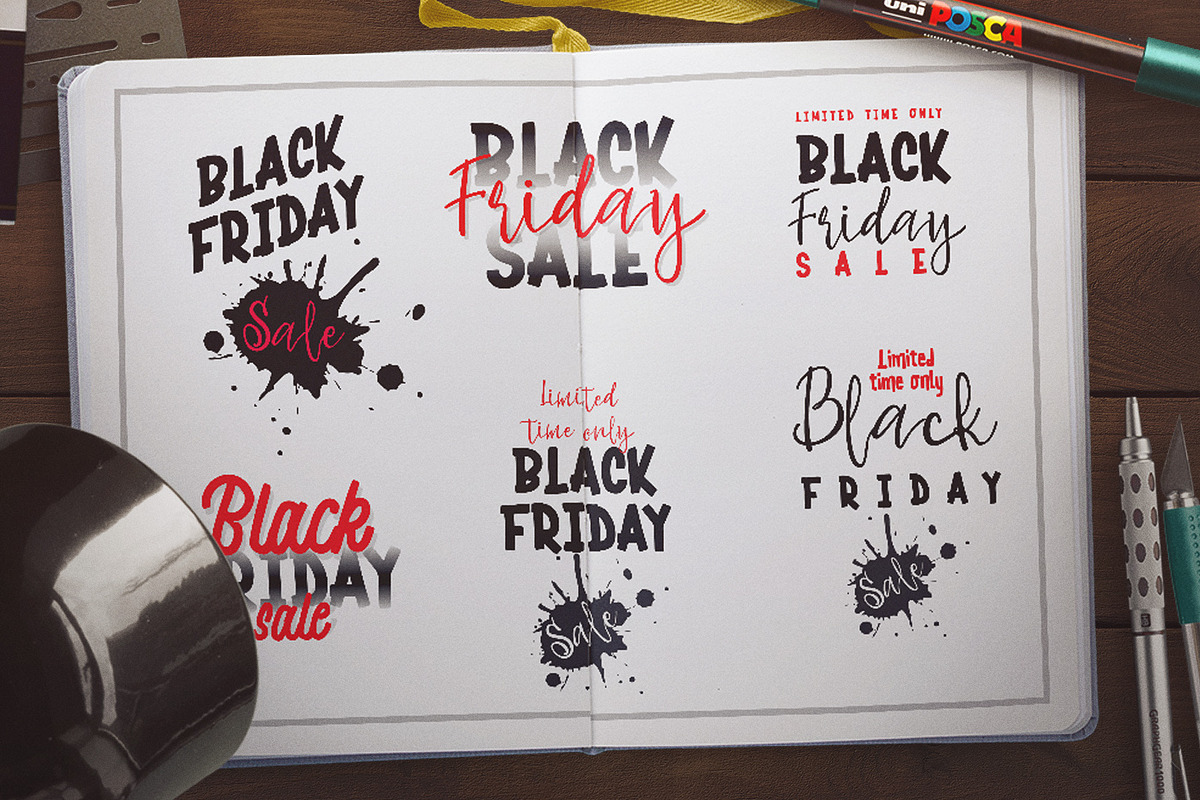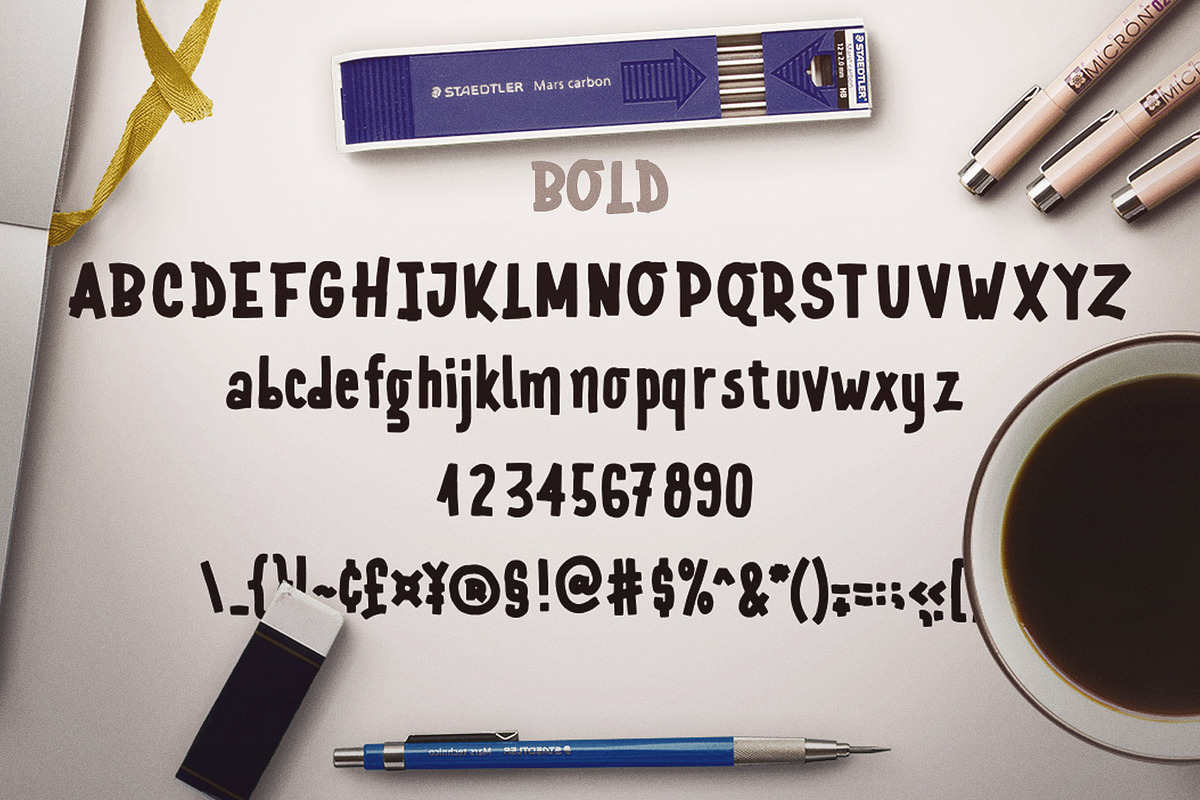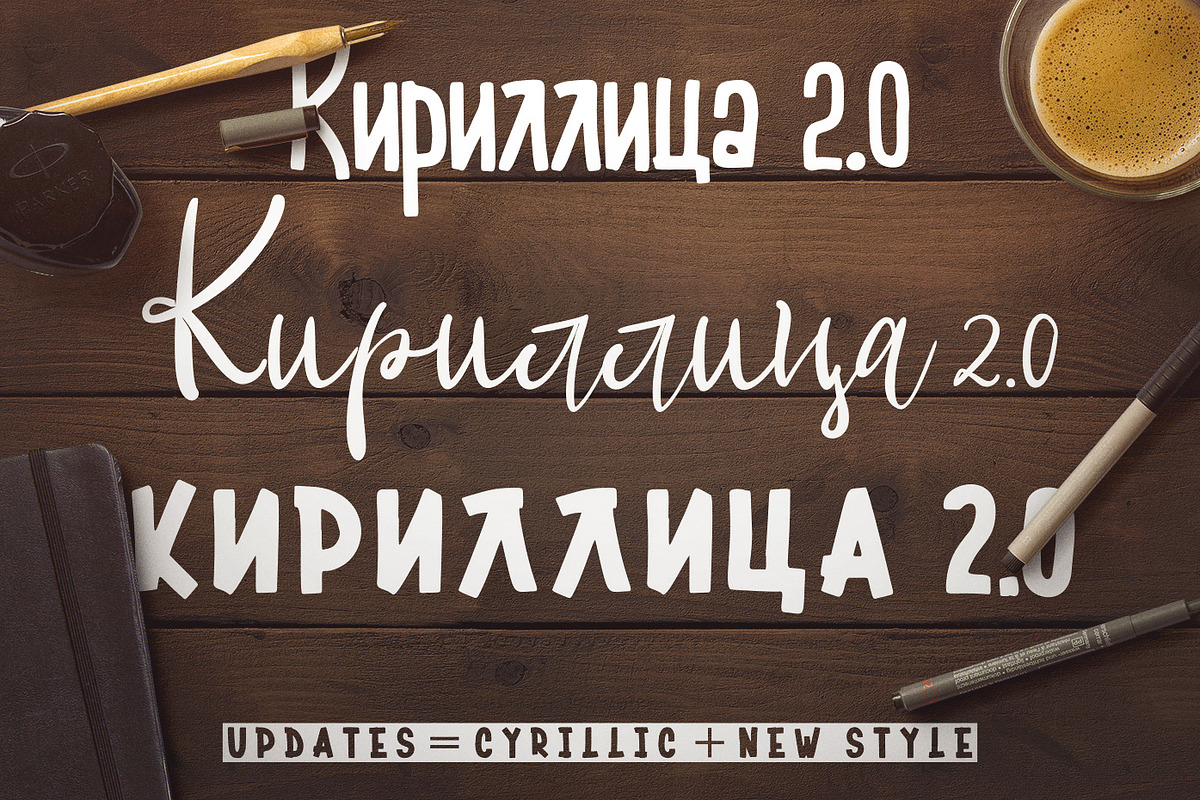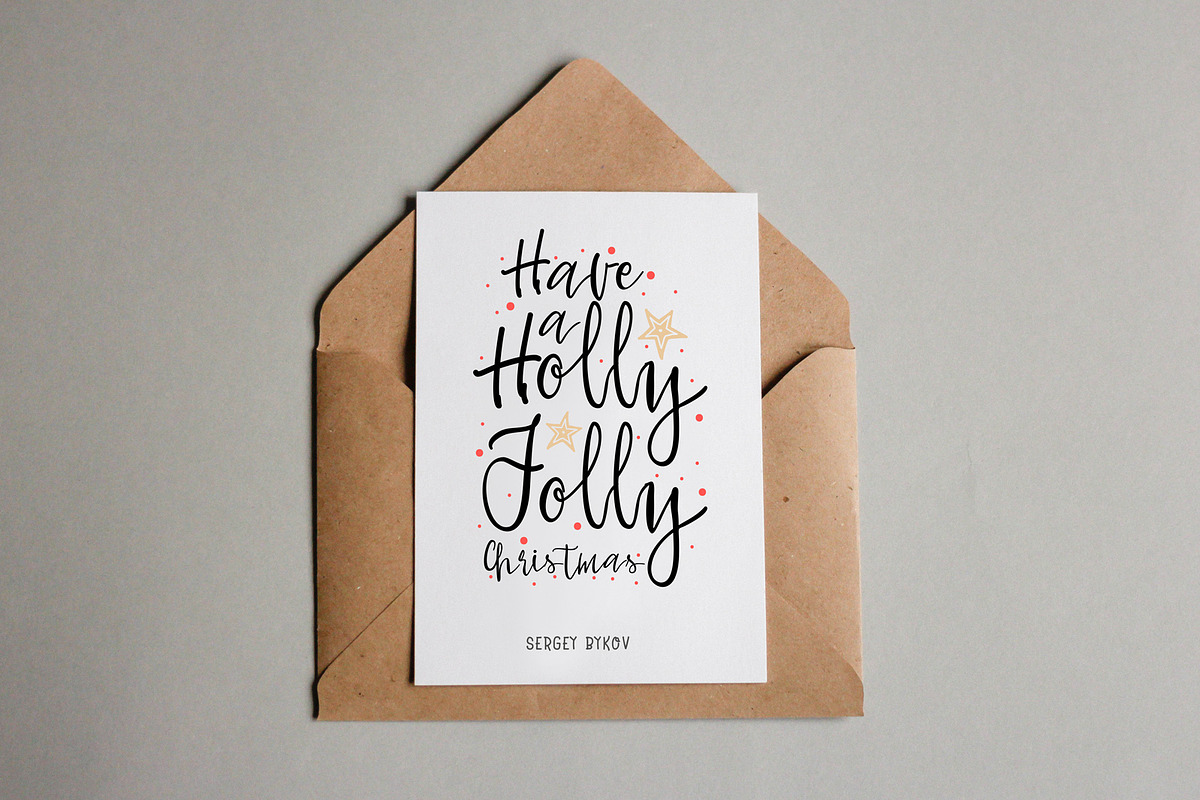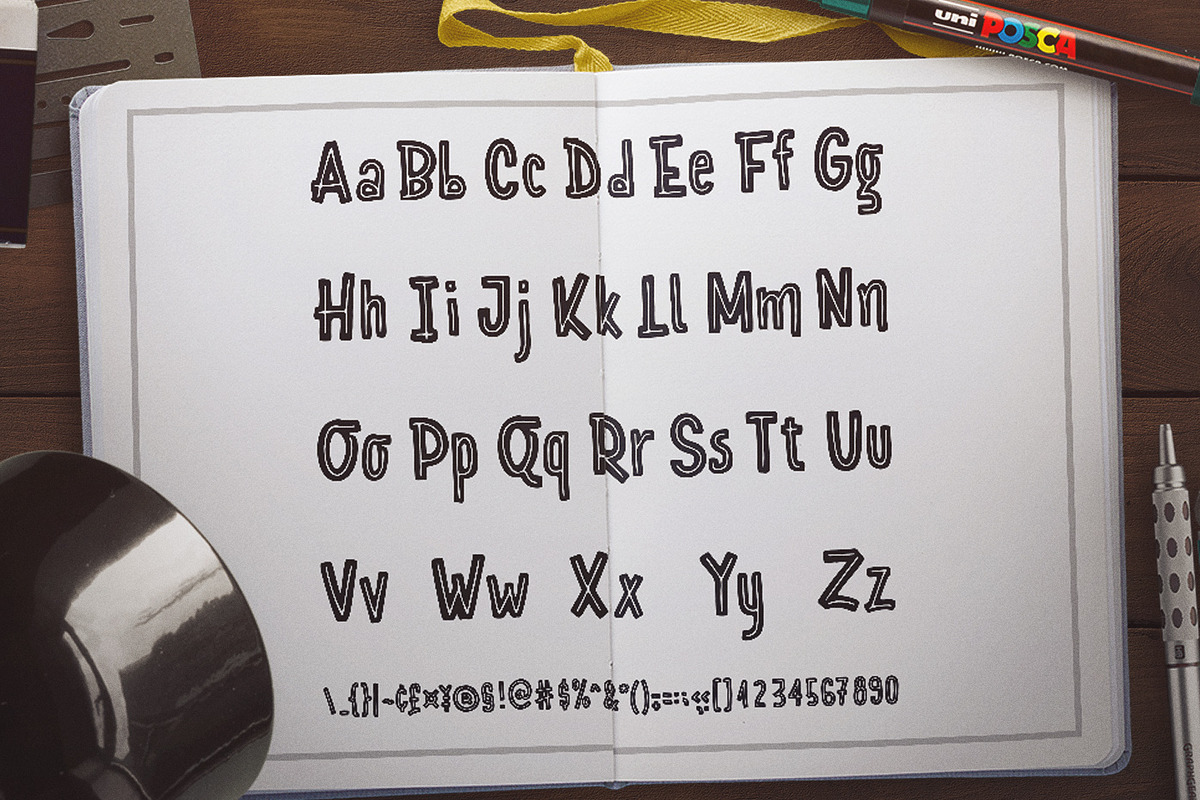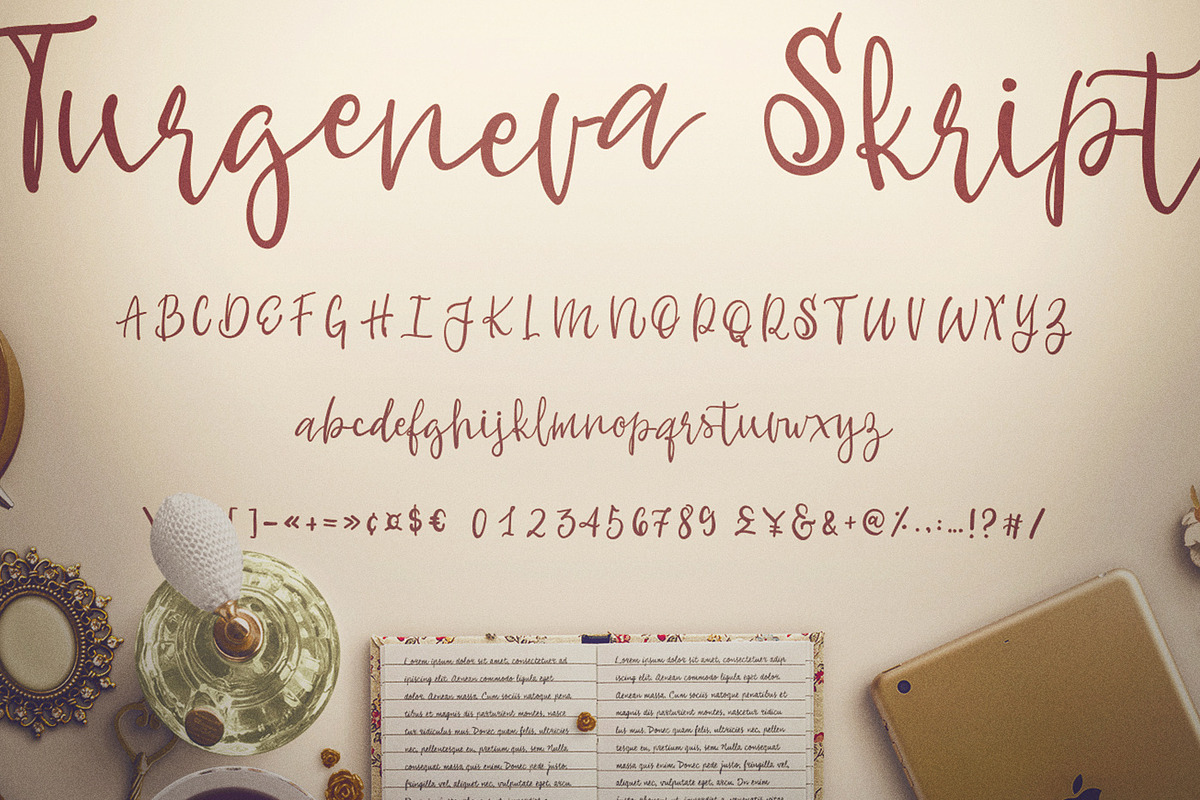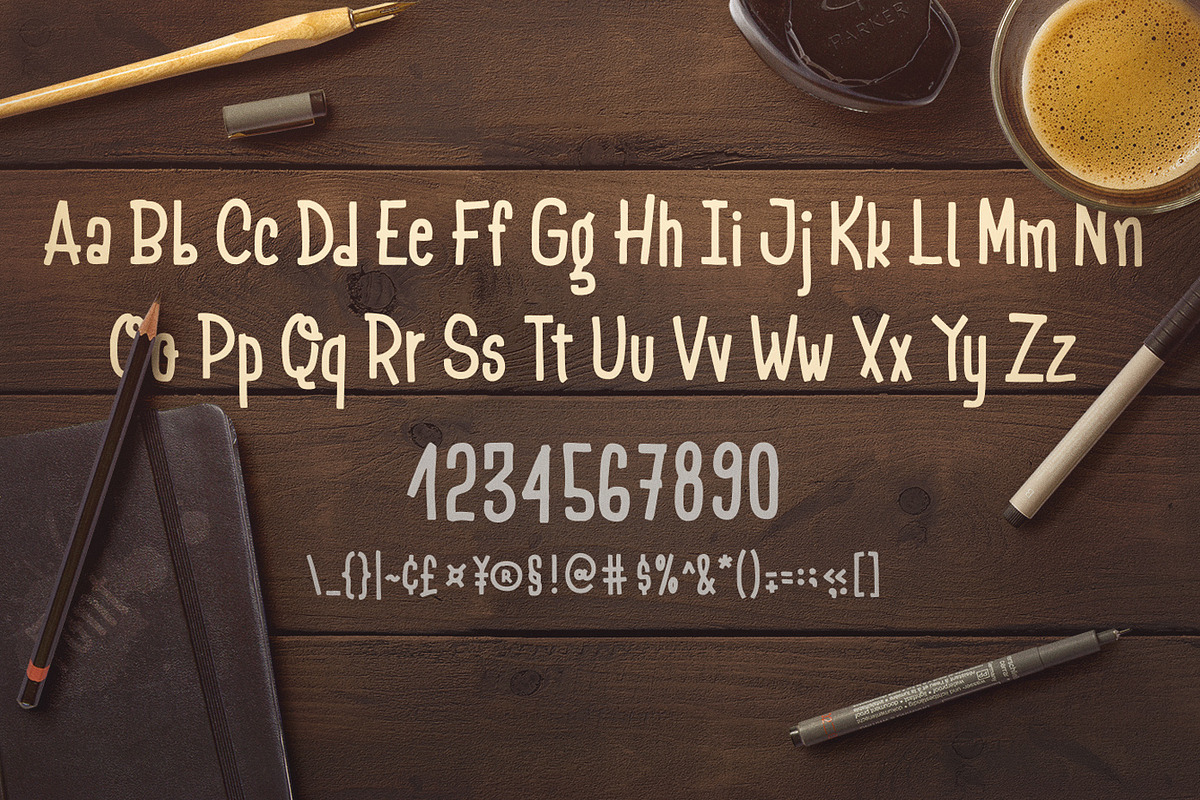
Turgeneva Font
Hi guys!!! New update 10/31/2018: Cyrillic added, and new style - black
Hi guys! I created a new four handwritten fonts.
turgeneva bold with slot
Diacrtics : ЊÀÁÂÃÄÅÆÇÈÉÊËÌÍÎÏÑÒÓÔÕÖØÙÚÛÜÝžàáâãäåæçèéêëìíîïðñòóôõöùúûüýÿ
Uppercase / lowercase / Outlines / Numbers & Punctuation / Foreign Language Support
Font Turgeneva works great in any branding, films, magazines, header, logos. The different styles give you option to explore a whole host of applications, while the outline fonts give a real modern feel to any project.
Turgeneva Font by zao4nik fits naturally into Branding, posters, packaging, typography.